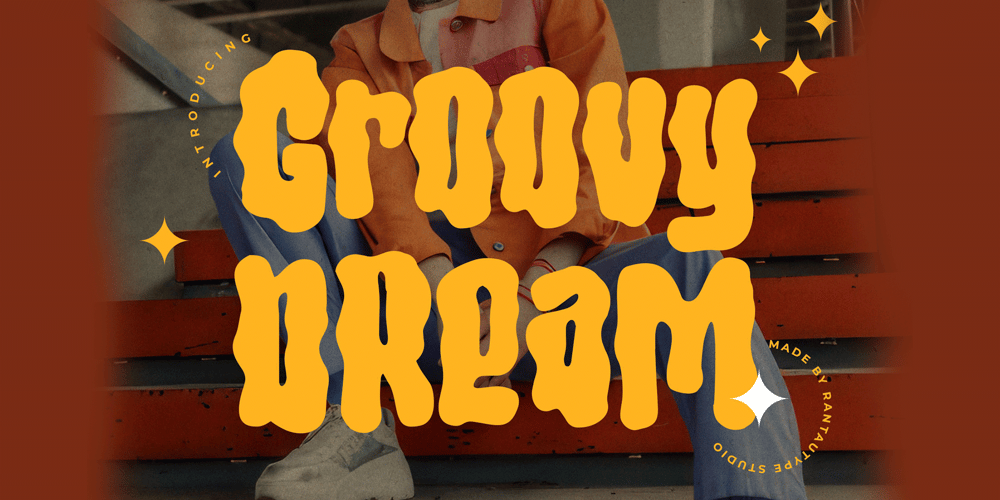
Groovy Dream
Groovy Dream font
Groovy Dream Font Family was designed by Yudi Pratama Chandra and published by RantauType. Groovy Dream contains 1 styles and family package options. Groovy dream is playfully nostalgic typeface with unique and sinuous shape. Groovy dream bring vintage fun retro to become favorite designed, this font has the potential to bring each of your creative ideas to the highest level!Groovy dream is perfectly choice for any creative endeavor, such as logos, title, watermark on photography, cover, branding, display and magazine, wedding event, corporate brand, quotes, album cover, business card, business project and many other design project with playful taste.What you have: Standar Glyphs Numberial and Functional Alternate and Ligature Works on PC & Mac Simple installations Accessible in Adobe Illustrator, Adobe Photoshop, Adobe InDesign, even work on Microsoft Word. Fonts include Multilingual Character for: Afrikaans, Albanian, Asu, Basque, Bemba, Bena, Breton, Chiga, Cornish, Dutch, English, Estonian, Filipino, Finnish, Friulian, Galician, Gusii, Indonesian, Irish, Italian, Kabuverdianu, Kalenjin, Kinyarwanda, Luo, Luxembourgish, Luyia, Machame, Makhuwa-Meetto, Makonde, Malagasy, Manx, Morisyen, North, Ndebele, Nyankole, Oromo, Portuguese, Quechua, Romansh, Rombo, Rundi, Rwa, Samburu, Sango, Sangu, Scottish, Gaelic, Sena, Shambala, Shona, Soga, Somali, Spanish, Swahili, Swedish, Swiss, German.Thank you for your purchase!Hope you enjoy with our font!